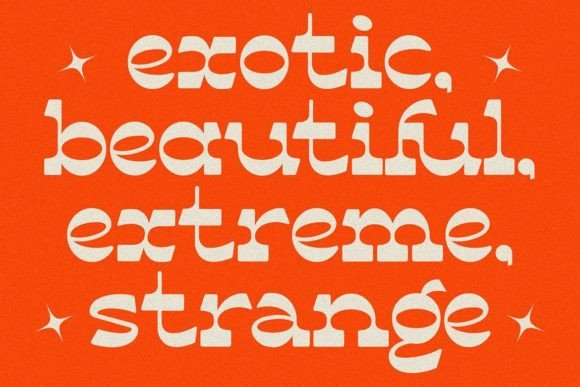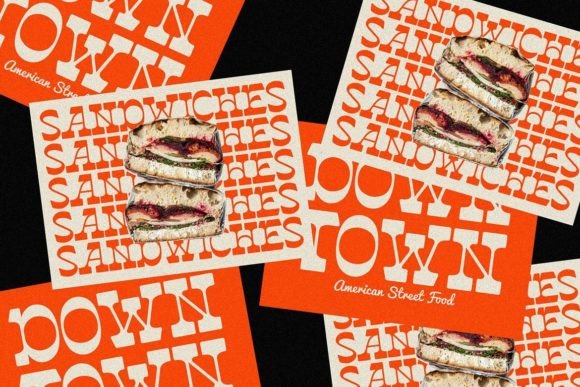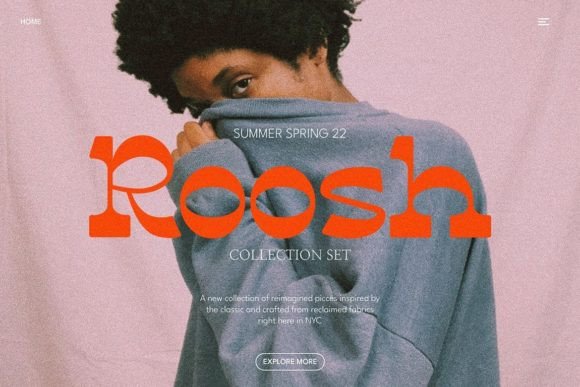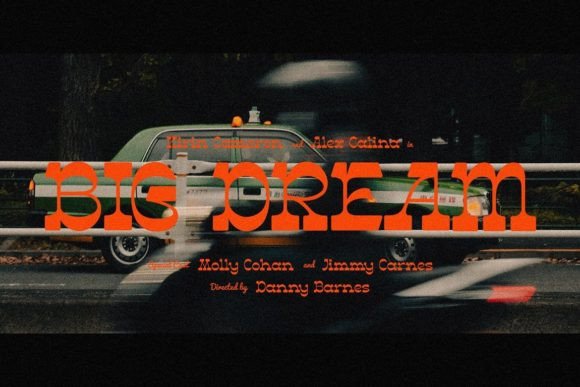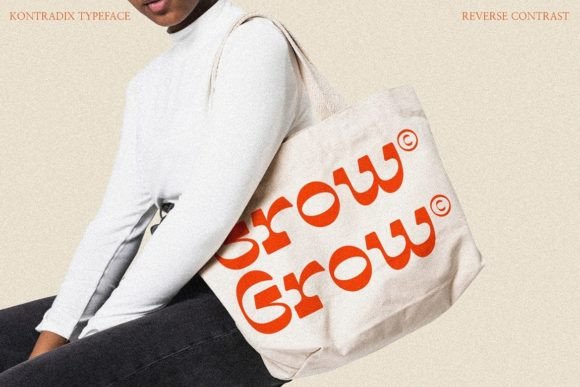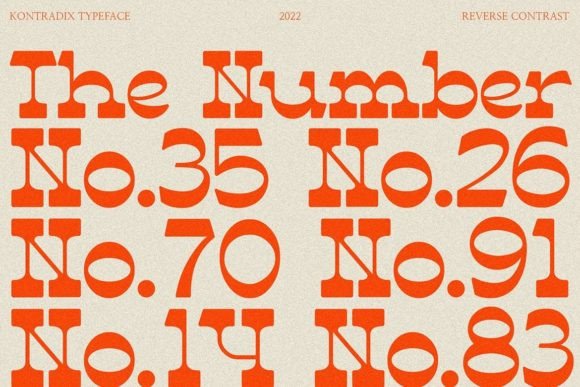
Introduction to Kontradix Font
Have you ever stared at a blank page, cursor blinking, and suddenly a burst of creativity hits you? The ideas start flowing, and you know exactly what you want to create. But, the key to unlocking that vision lies in the right design resources. That’s where the Kontradix Font comes in – a game-changing tool for designers looking to elevate their creative projects.
This innovative font boasts a reverse contrast serif design that’s both modern and stylish. With its carefully crafted styles and thoughtful alternates and ligatures, the Kontradix Font is perfect for making your designs stand out. Whether you’re working on a high-quality flyer, poster, or even a product packaging design, this font is sure to bring a touch of sophistication and creativity to your work.
Key Features of Kontradix Font
- Unique, modern font with a transparent background, ideal for digital design and print materials.
- Supports a wide range of languages, making it a versatile design resource for global projects.
Honest Review: Kontradix Font
I recently stumbled upon the Kontradix Font, and I’m excited to share my thoughts on this design resource. As a designer, I’m always on the lookout for high-quality fonts to enhance my creative projects.
- Unique, modern design that adds a touch of sophistication to any project
- Easy to customize and manipulate in various design applications
- Transparent background makes it easy to integrate into complex designs
However, I do have a few minor quibbles:
- Some of the characters may appear pixelated at certain font sizes
- Not as extensive a character set as some other fonts I’ve used
Overall, I’m impressed with the Kontradix Font, and I think it’s a great addition to any designer’s toolkit. While it may not be perfect, its unique design and ease of use make it a valuable resource for any creative project. ✨
Kontradix Font is a high-quality design resource that offers a unique and creative way to enhance your projects. With its transparent background, you can easily incorporate it into your designs without any distractions.
Tips for Getting the Most Out of Kontradix Font
Experiment with different font sizes, colors, and styles to find the perfect combination for your project. Use the font in conjunction with other design elements to create a cohesive look.
Kontradix Font is ideal for creative projects such as logos, brochures, and social media graphics. Its unique design makes it perfect for capturing attention and conveying a message effectively.